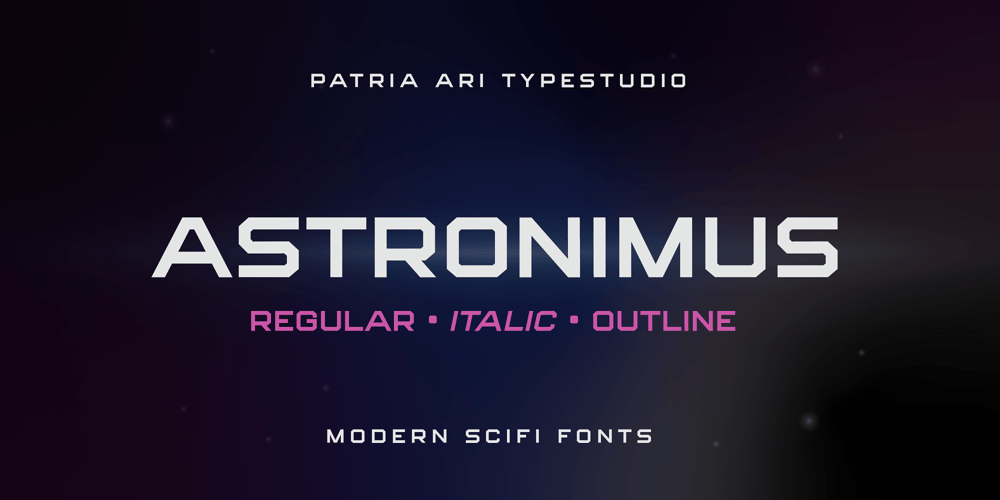
Astronimus Font Family was designed by Patria Ari Wijonarko and published by Patria Ari. Astronimus contains 4 styles and family package options. Astronomus, a cutting-edge sci-fi tech font characterized by its bold box-shaped letters. This modern typeface is meticulously designed, offering a distinctive aesthetic that makes it the ideal choice for various logotype applications. Whether you’re in the technology sector, the construction industry, automotive design, or any other heavyweight domain, Astronomus delivers a powerful and futuristic visual impact.